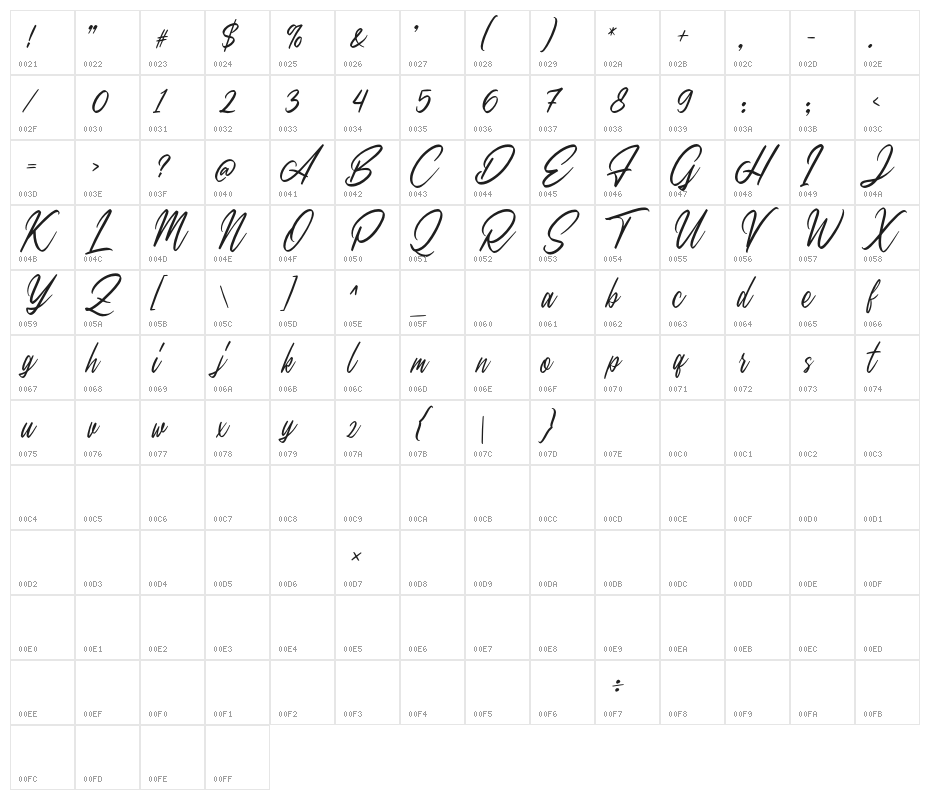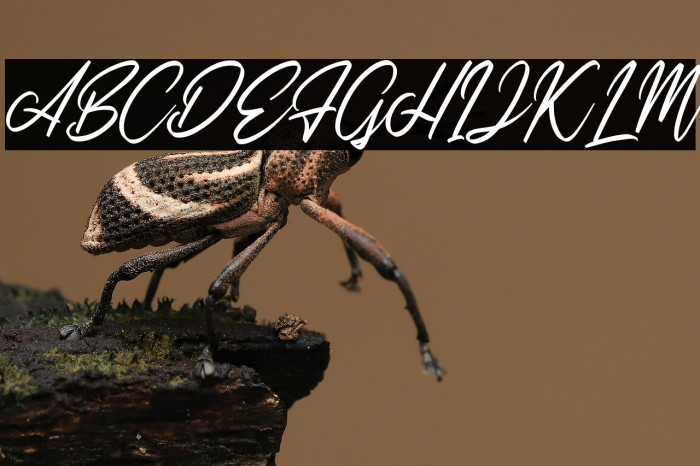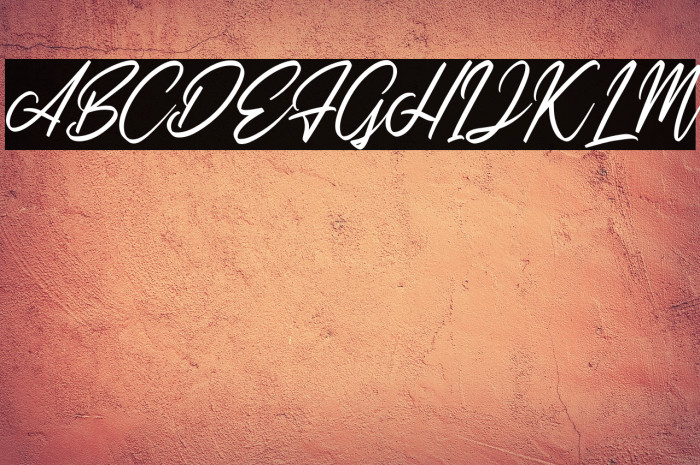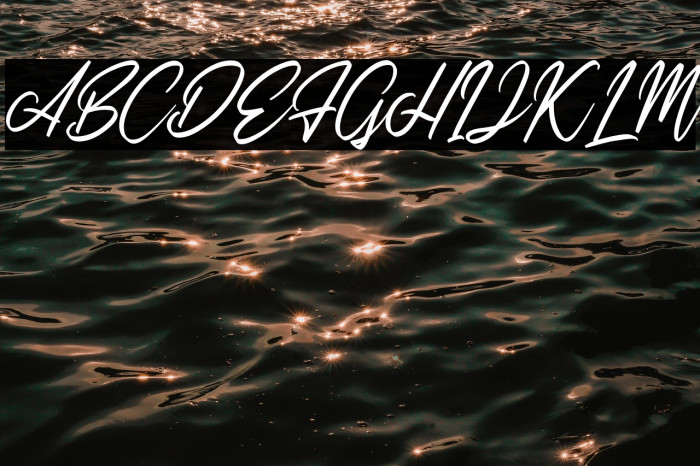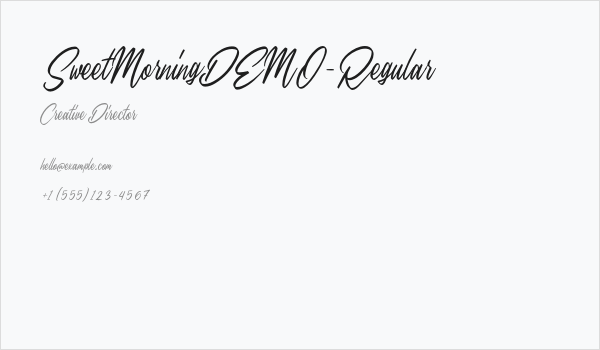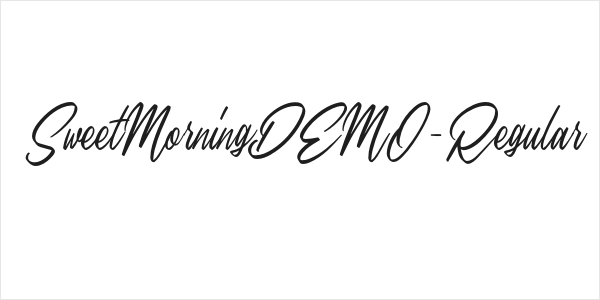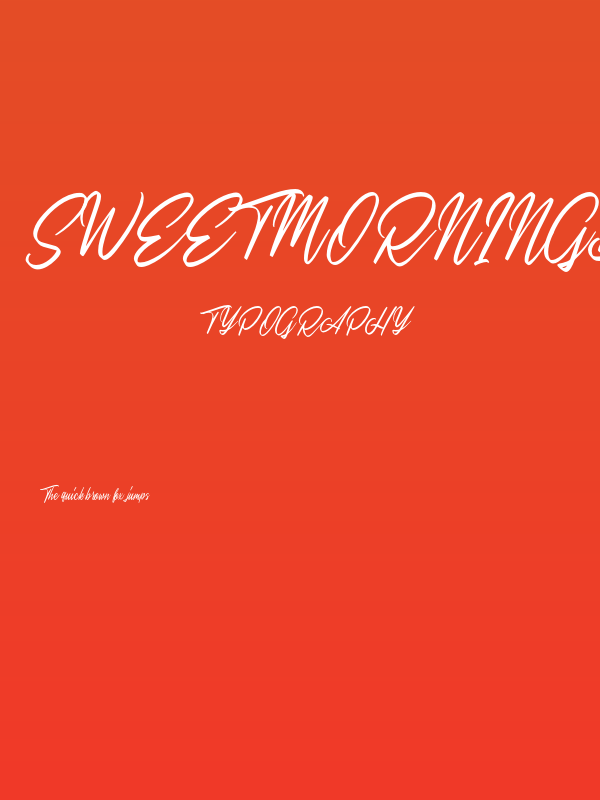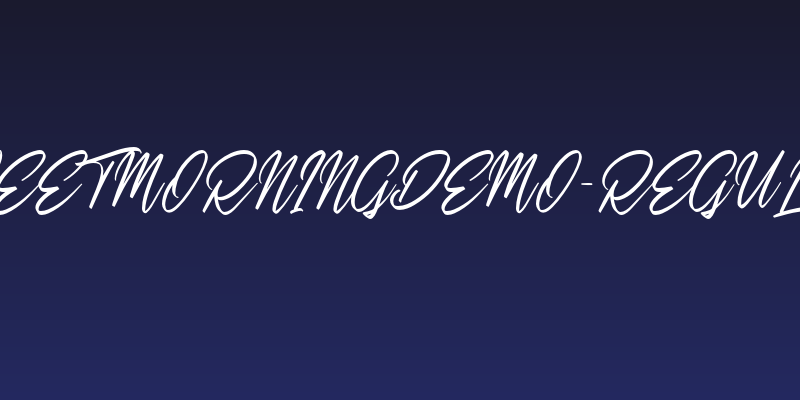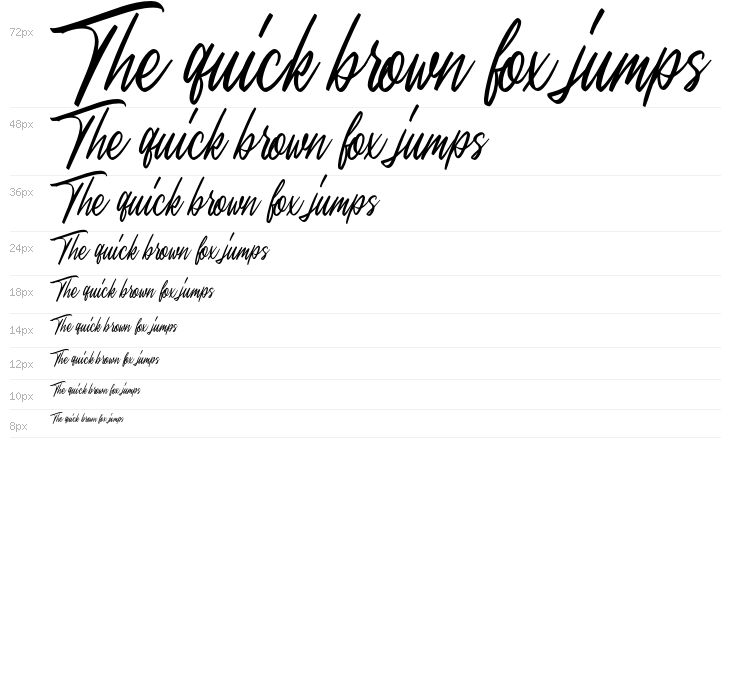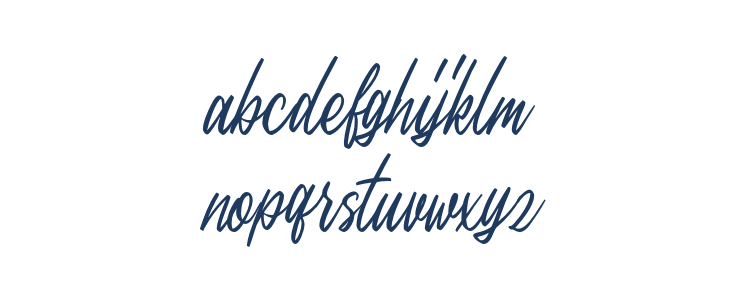
SweetMorningDEMO-Regular Font
SweetMorningDEMO-Regular Description
This font exudes a lively and elegant script style, characterized by its fluid and connected letterforms. The uppercase letters are bold and sweeping, with a distinct slant that adds a sense of motion and grace. The lowercase letters maintain the same fluidity, with smooth transitions between strokes, creating a harmonious and cohesive appearance. Numbers and special characters are crafted with the same attention to detail, ensuring consistency across all glyphs. This font is perfect for projects that require a personal touch, such as invitations, greeting cards, or branding materials.
| Proposed Projects | Ideal for invitations, greeting cards, branding, and personal projects. |